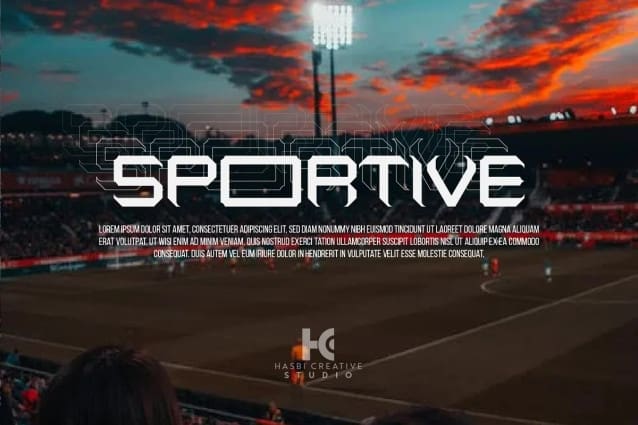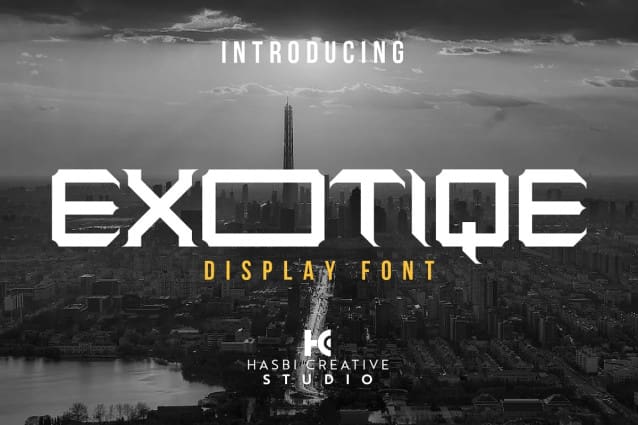
Exotiqe Display Font
Exotiqe Display Font is a Display Font – All-Capital Font, It is perfect for headings, flyers, greeting cards, product packaging, book covers, printed quotes, logotypes, apparel designs, album covers, etc.